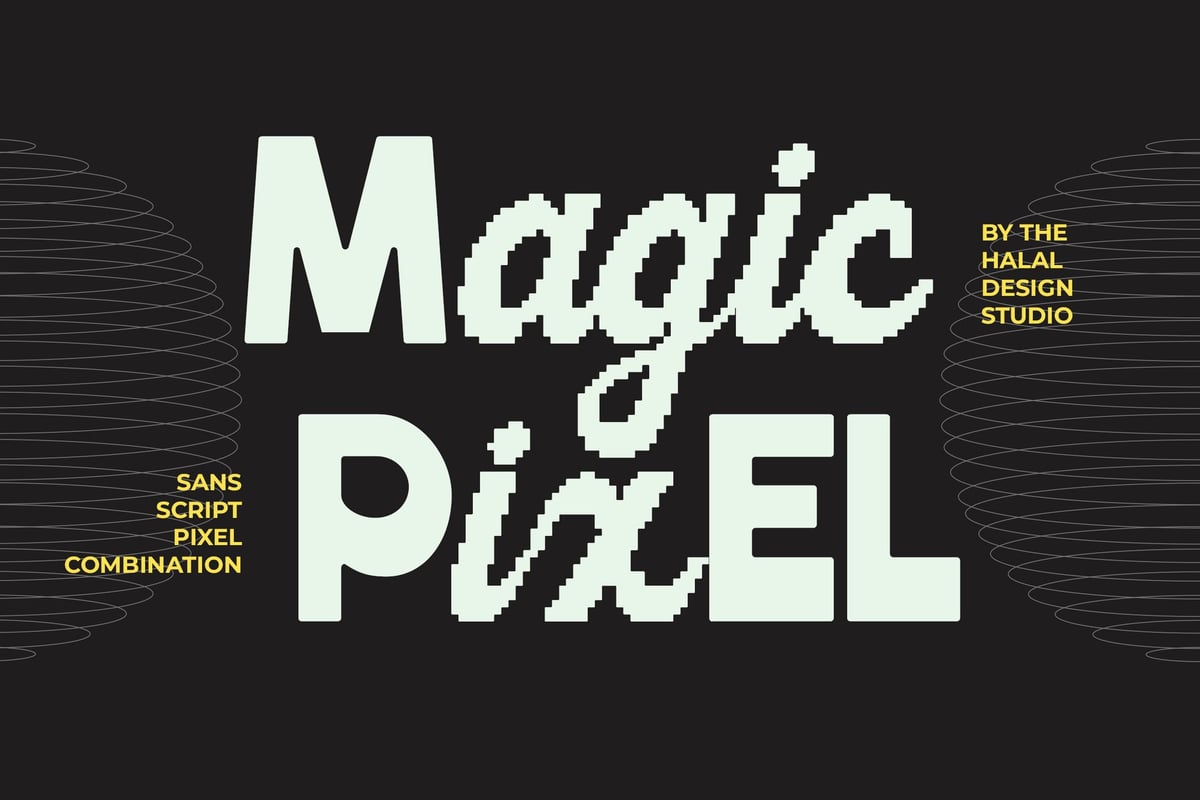
Magic Pixel Duo - Bold Display Typeface
Two fonts. One bold statement — where pixel nostalgia meets modern sans-serif power.
Magic Pixel is a unique font duo that pairs a bold geometric sans with a retro-inspired pixel script, creating a striking contrast between modern simplicity and nostalgic digital aesthetics. The distinctive pixel script brings a playful vintage computer feel, while the clean sans keeps your layouts bold and highly readable.
Whether you're designing for retro gaming, tech branding, Y2K aesthetics, or contemporary creative projects, Magic Pixel gives you the flexibility to craft memorable typography with real personality.
- Bold Sans & Pixel Script styles
- Ligatures & alternates for enhanced typographic flexibility
- Multilingual language support